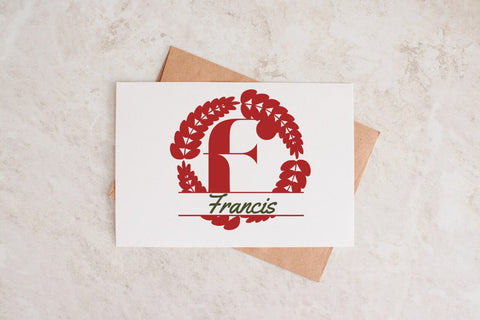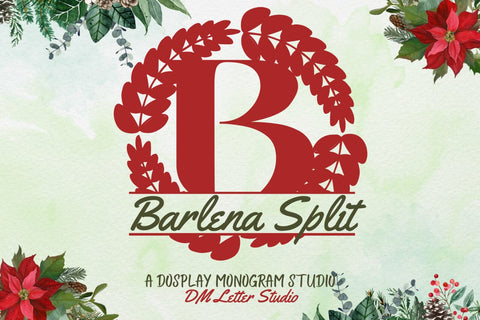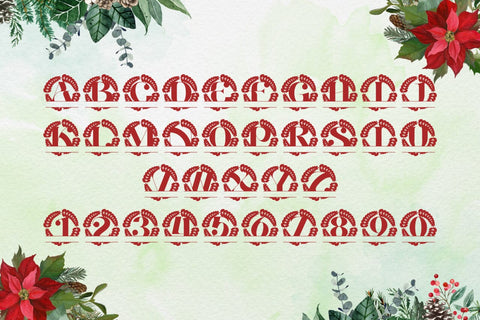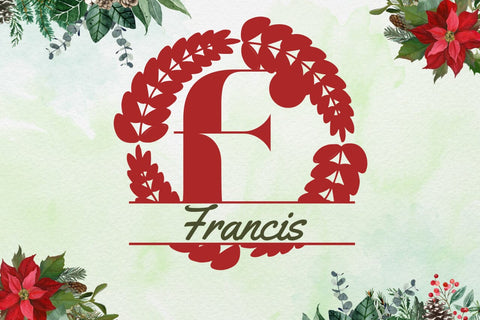
Barlena Split Monogram Font
Meet Barlena Split Monogram Font
Barlena Split Monogram Font turns any initial into a refined, name-ready emblem in seconds. Clean, balanced letterforms project calm elegance, while a precise horizontal split creates natural space for names, dates, or short words. Because spacing stays even and counters remain open, designs look polished from tiny tags to statement wall art. Use it for wedding keepsakes, family signs, door hangers, tumblers, ornaments, menus, and boutique packaging. In addition, this split monogram font pairs beautifully with a simple sans or a light script, so every layout stays readable and premium.
Where this split monogram font shines
Set a single hero initial, then place the family name inside the split for instant personalization. Next, try couple names for engagement gifts, venue names for directional signage, or short words like “Home,” “Welcome,” and “Love” for seasonal décor. Since the proportions favor clarity, your files scale smoothly for Cricut, Silhouette, Glowforge, and laser projects—ideal for vinyl, engraving, and foil.
Design tips for Barlena Split Monogram
Keep the hero initial large and let white space breathe. Place the split at center or slightly low for a calm baseline. Choose a clean supporting font inside the split to protect legibility on small items. Because the style is airy and poised, metallic foils, textured stocks, and natural woods add instant value. However, keep names concise so the composition stays balanced and reads clearly at thumbnail size.
Uppercase alphabet optimized for split monograms
Matching lowercase, numbers, punctuation
Curves tuned for engraving, foil, laser cutting, and clean vinyl paths
Why makers choose this split monogram font
You want fast personalization that still feels bespoke. Barlena Split Monogram Font delivers consistent, elegant name designs in minutes while keeping your shop’s visual language cohesive across many product types.